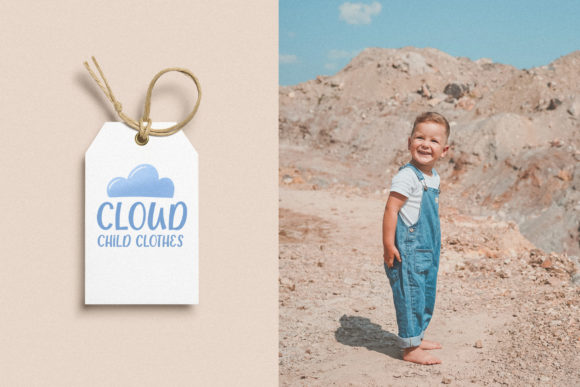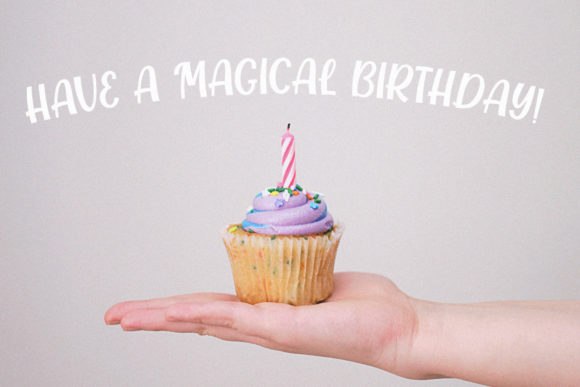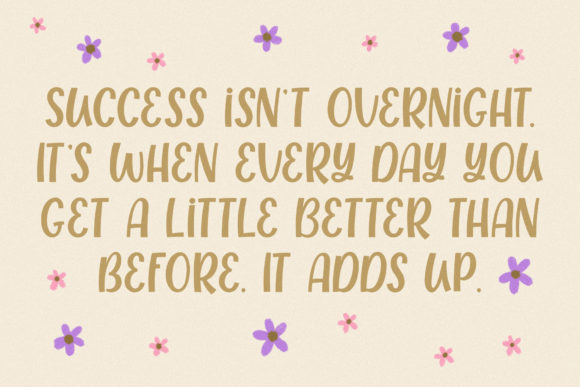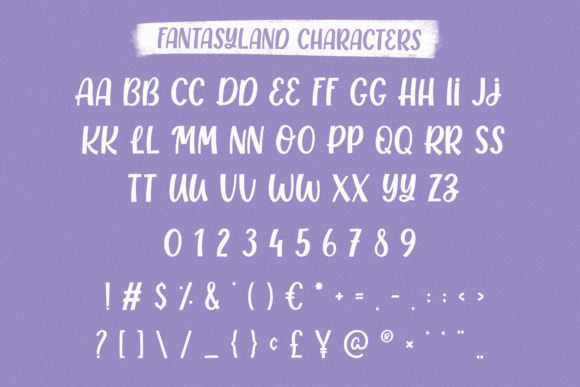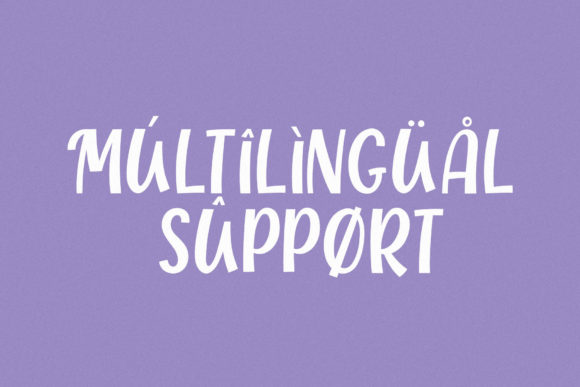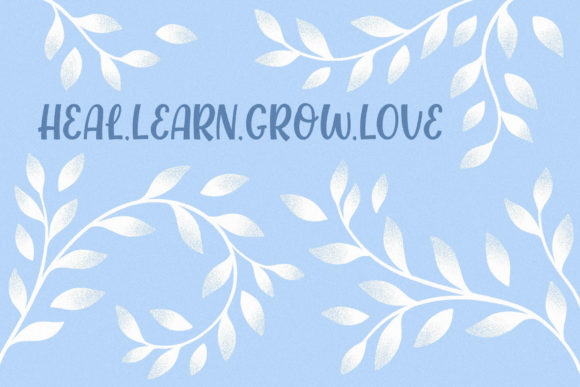
Fantasyland Font: Add a Touch of Whimsy to Your Designs
Are you tired of using the same old fonts in your designs? Do you want to add a touch of personality and whimsy to your projects? Look no further than the Fantasyland font! This cute and quirky handwritten font is perfect for designers and crafters who want to bring a friendly feel to their work.
What is Fantasyland Font?
Fantasyland is a handwritten font that is designed to be incredibly friendly and approachable. With its playful and curly letters, it’s perfect for adding a personal touch to any design project. Whether you’re creating social media graphics, DIY projects, or marketing materials, Fantasyland font is sure to make your work stand out.
Features of Fantasyland Font
- Cute and Quirky: Fantasyland font has a unique and playful design that is sure to capture the attention of your audience.
- Handwritten: This font has a personal and handwritten feel that makes it perfect for adding a touch of personality to your designs.
- Friendly Feel: The font has an incredibly friendly feel that makes it perfect for designs that need to be approachable and inviting.
- Versatile: Fantasyland font can be used for a wide range of design projects, from social media graphics to DIY projects.
Uses of Fantasyland Font
Fantasyland font is perfect for a wide range of design projects, including:
- Instagram Graphics: Add a touch of personality to your Instagram graphics with Fantasyland font.
- DIY Projects: Use Fantasyland font to add a personal touch to your DIY projects, such as scrapbooking, card making, and more.
- Marketing Materials: Use Fantasyland font to add a friendly and approachable feel to your marketing materials, such as brochures, flyers, and more.
- Social Media Graphics: Use Fantasyland font to create eye-catching social media graphics that will help your brand stand out.
Benefits of Using Fantasyland Font
There are many benefits to using Fantasyland font in your designs, including:
- Unique and Playful Design: Fantasyland font has a unique and playful design that will help your designs stand out.
- Incredibly Friendly Feel: The font has an incredibly friendly feel that makes it perfect for designs that need to be approachable and inviting.
- Easy to Read: Fantasyland font is easy to read, making it perfect for designs that need to communicate a message.
- Versatile: Fantasyland font can be used for a wide range of design projects, making it a great addition to your font library.
How to Use Fantasyland Font
- Use it for Headings: Fantasyland font is perfect for headings and titles, where you want to add a touch of personality and whimsy.
- Mix it with Other Fonts: Fantasyland font can be paired with other fonts to create a unique and interesting design.
- Experiment with Colors: Fantasyland font looks great in a variety of colors, so don’t be afraid to experiment and find the perfect color for your design.
Fantasyland font is a cute and quirky handwritten font that is perfect for designers and crafters who want to add a touch of personality and whimsy to their designs. With its playful and curly letters, it’s perfect for adding a personal touch to any design project. Whether you’re creating social media graphics, DIY projects, or marketing materials, Fantasyland font is sure to make your work stand out.